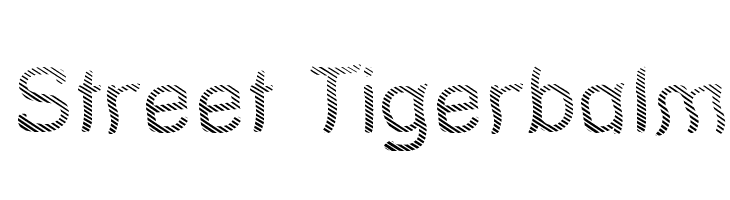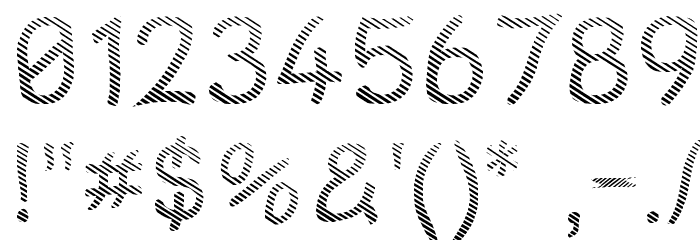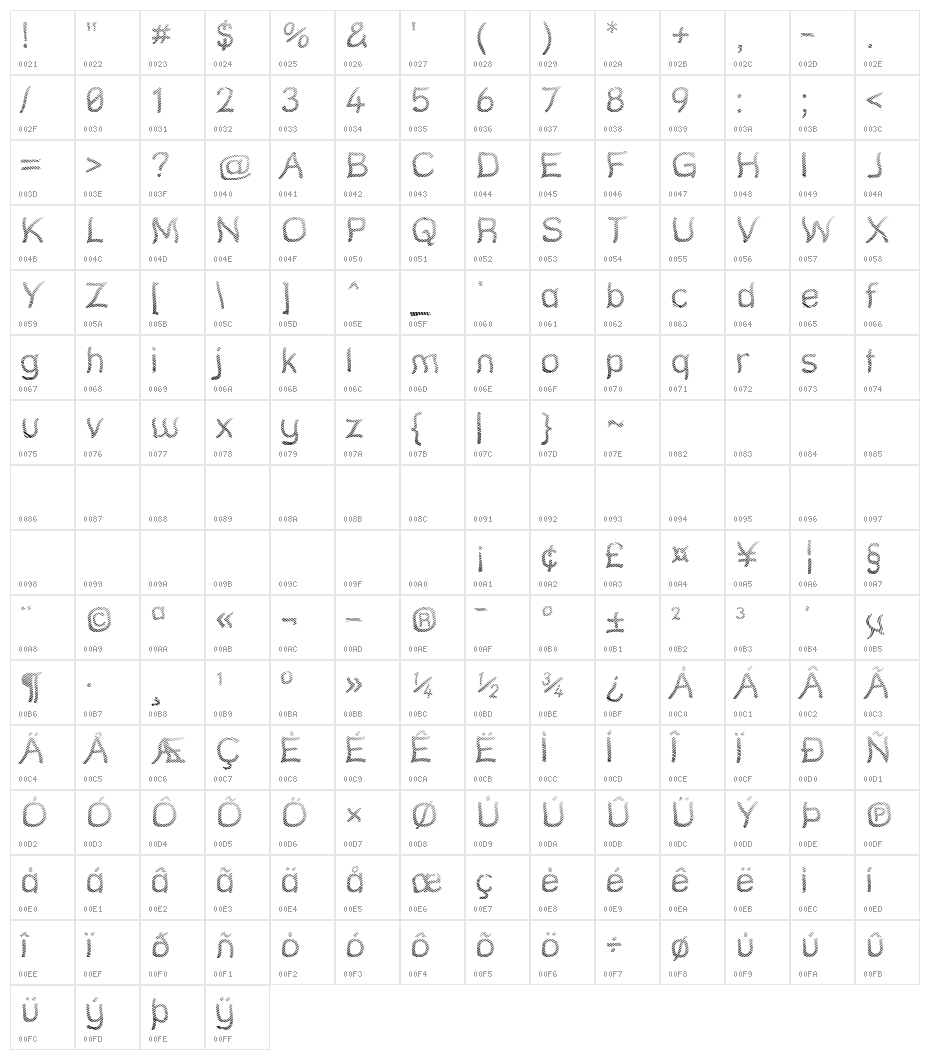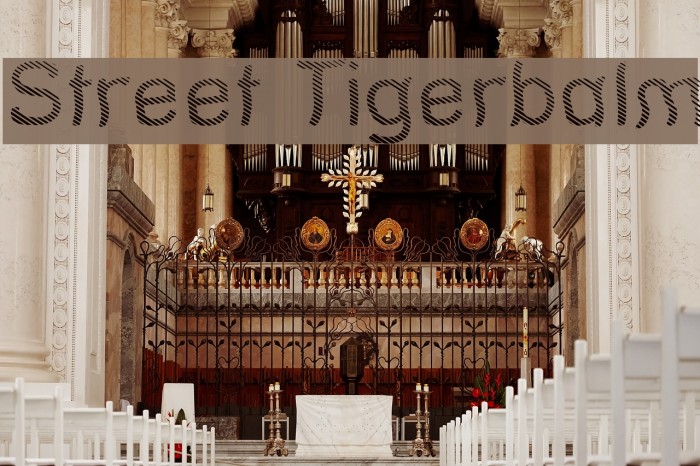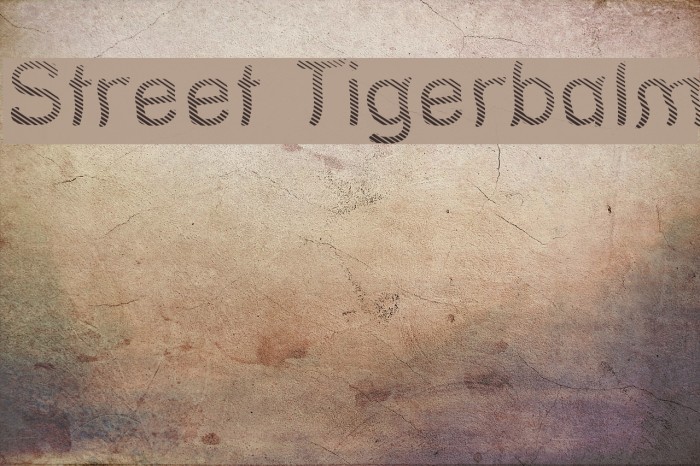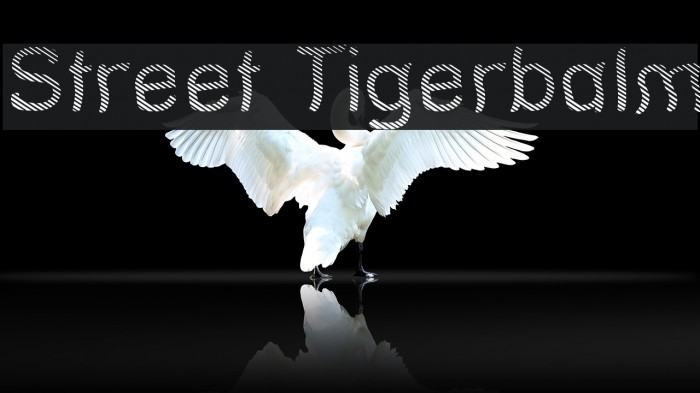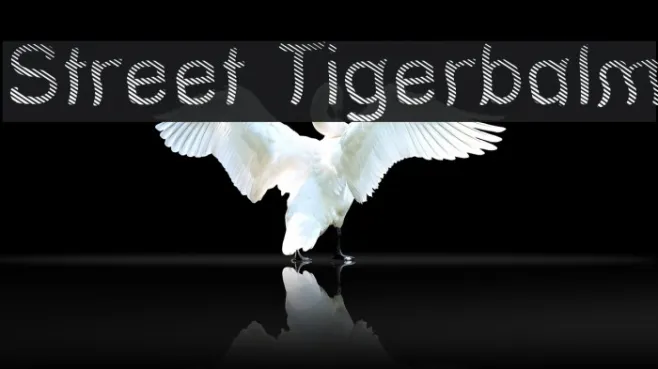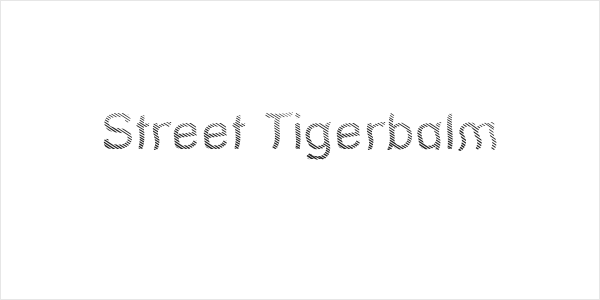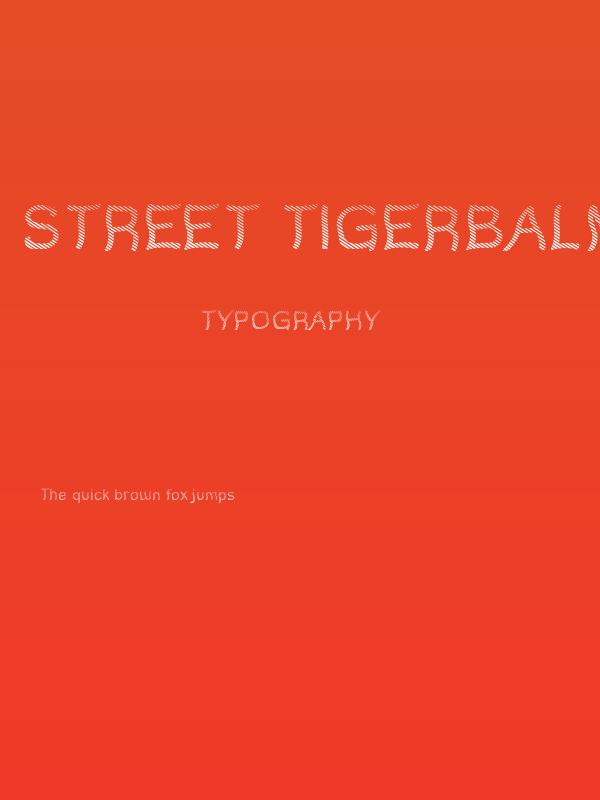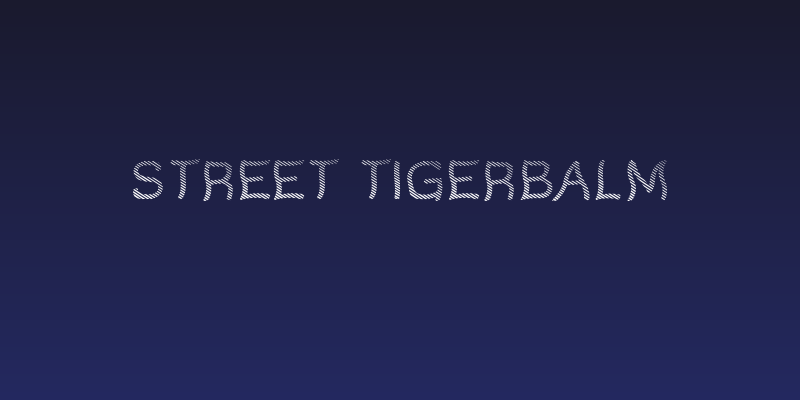
Street Tigerbalm Font
Street Tigerbalm Description
This font features a unique striped pattern across each character, giving it a dynamic and textured appearance. The letters are slightly slanted, adding a sense of movement and energy. The uppercase and lowercase letters maintain a consistent style, with rounded edges and a modern flair. Numbers and special characters are designed with the same striped effect, ensuring uniformity across all elements. The font's playful yet sophisticated design makes it stand out, suitable for creative and bold projects.
| Proposed Projects | Ideal for branding, posters, and creative advertising campaigns where a bold and distinctive look is desired. |